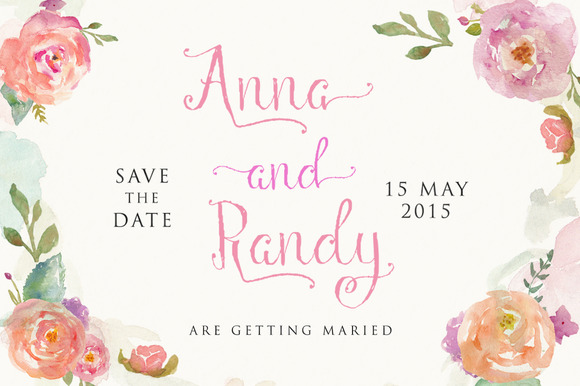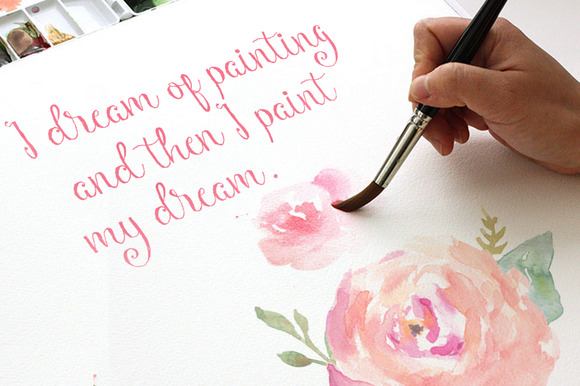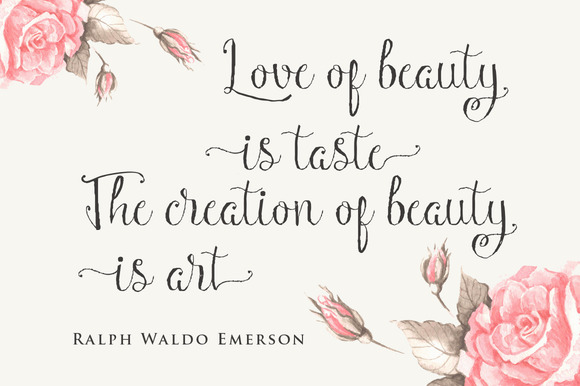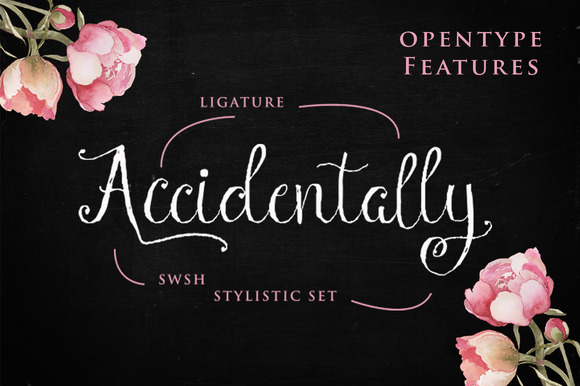
Introduction to Manny Script Font
Remember that moment when you’re working on a creative project, and you need just the right font to bring your design to life? The search is on, and hours of scrolling through font collections later, you stumble upon the perfect match – a beautiful, handmade script that adds a touch of elegance to your design. For many designers, this is a moment of pure joy, and it’s exactly what the Manny Script Font is all about.
As a valuable design resource, the Manny Script Font offers a high-quality, natural look that’s perfect for any creative project. With its unique, handwritten feel, it’s no wonder designers are flocking to this beautiful script font. And the best part? It’s available for free download, making it an accessible design tool for designers of all levels.
Whether you’re working on a branding project or creating a digital product, the Manny Script Font is a versatile design element that can add a touch of sophistication to your design. Plus, with its transparent background, you can easily layer it over any image or background, giving you complete creative control.
Key Features of Manny Script Font
- High-quality, elegant script font ideal for creative projects and design resources.
- Comes with transparent background, making it perfect for use on various backgrounds.
- Features a beautiful, cursive design with unique flourishes and swashes.
- Designed to work well at a variety of font sizes, from 12 to 72 points, with optimal resolution at 300 DPI.
- Perfect for use in wedding invitations, quotes, and other creative projects where a touch of elegance is desired.
Honest Review: Manny Script Font
As a designer, I’m always on the lookout for high-quality design resources to elevate my creative projects. Recently, I stumbled upon the Manny Script Font, and I’m excited to share my thoughts with you.
What works well: ✨ The Manny Script Font is incredibly versatile and can be used for a variety of creative projects, from wedding invitations to social media graphics. The font’s elegant and flowing script style makes it perfect for adding a touch of sophistication to any design. I also appreciate the transparent background option, which makes it easy to use the font on any color scheme.
What doesn’t: ⚠️ While the Manny Script Font is a great addition to any designer’s toolkit, it does have some limitations. For one, the font is only available for personal use, which may limit its appeal for commercial projects. Additionally, the font’s character set is somewhat limited, which may require designers to get creative with their typography.
Overall, I’m impressed with the Manny Script Font. It’s a great free download that can add a touch of elegance to any design. While it may have some limitations, it’s a valuable resource for designers looking to elevate their creative projects.
Manny Script Font
The Manny Script Font is a beautiful, high-quality design resource perfect for creative projects. With its elegant and sophisticated look, this font is ideal for adding a touch of class to your designs.
Tips for Getting the Most Out of Manny Script Font
For the best results, use Manny Script Font with a transparent background to create a clean and elegant look. You can also experiment with different font sizes, colors, and styles to create a unique and eye-catching design.
Manny Script Font is perfect for a variety of creative projects, including:
- Social media graphics and advertising
- Personalized gifts and cards